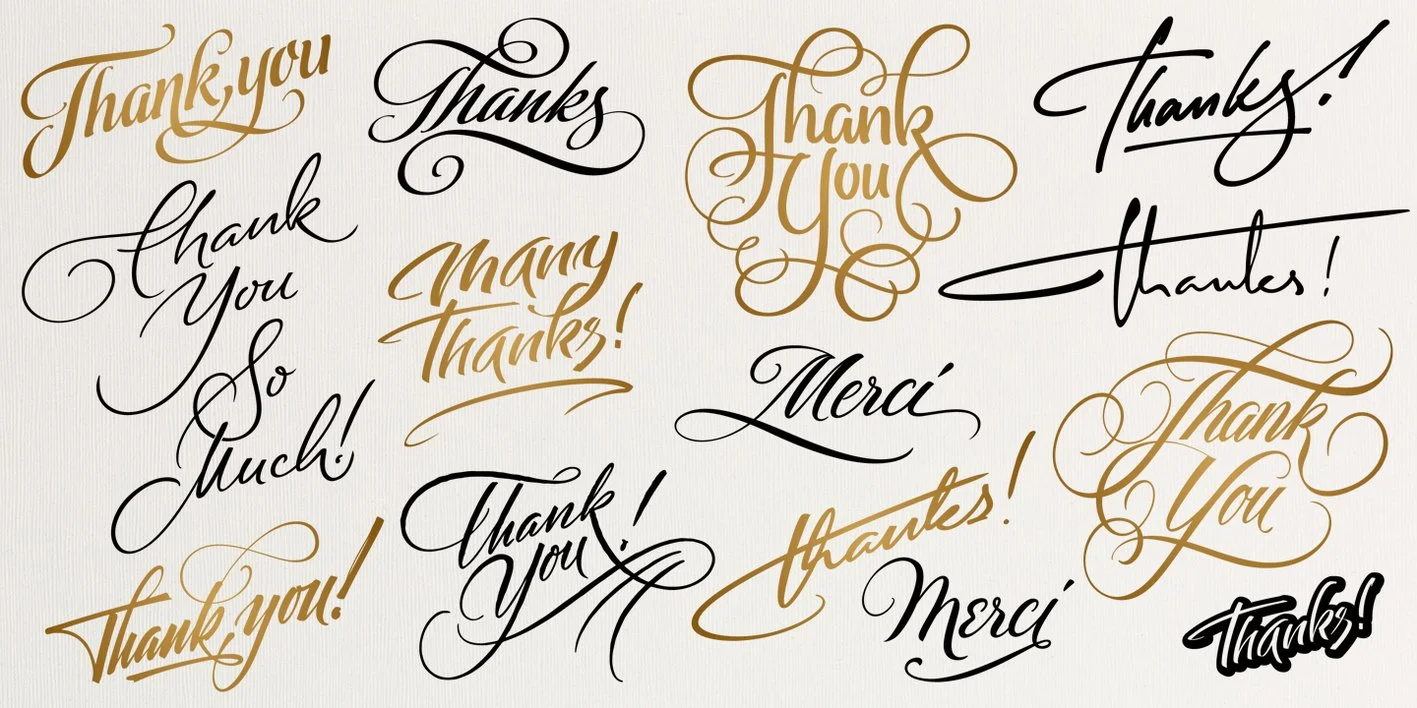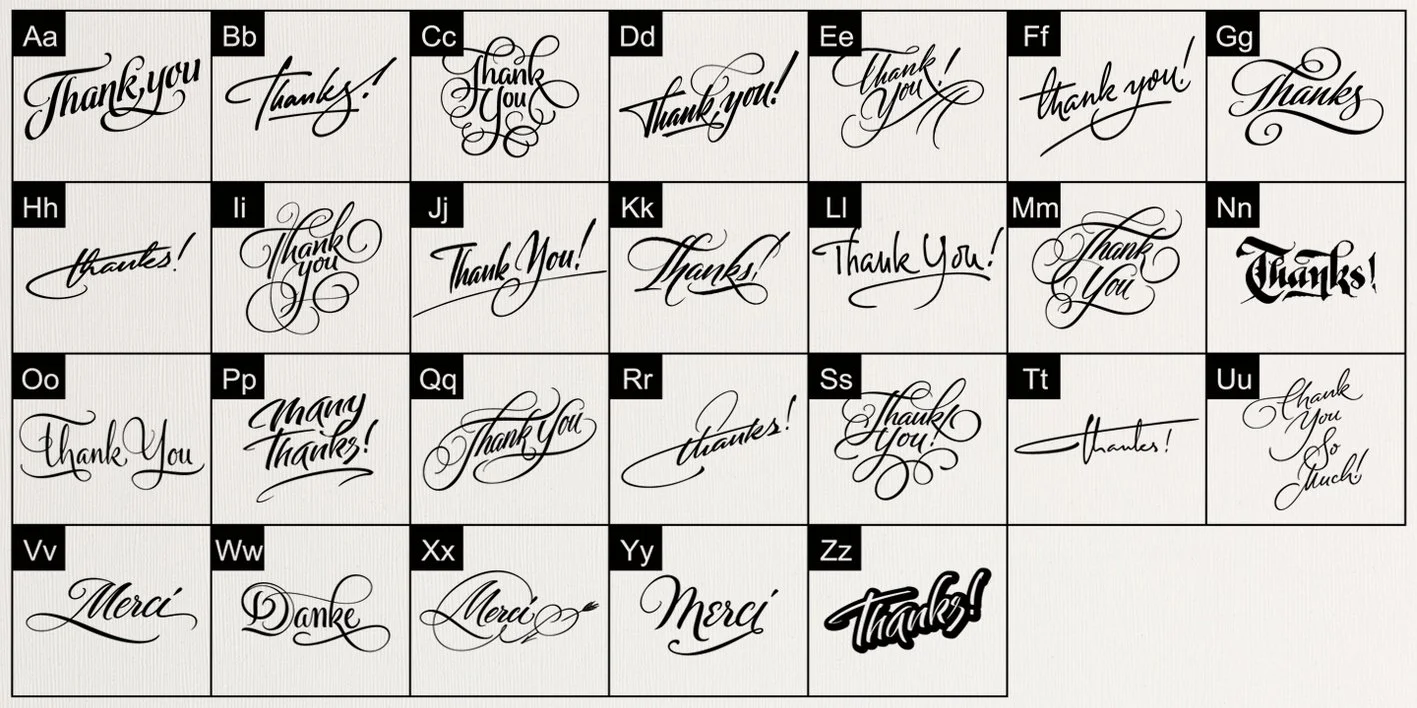
FM Thank You Font
Typography shapes perception at a subconscious level. FM Thank You leverages consistent type colour across continuous text to make every composition feel considered. The typeface brings a versatile sensibility to a broad range of creative disciplines, with versatility across print and screen contexts that holds up whether the work is print-first or screen-first.
In practice, FM Thank You proves particularly effective for signage systems, product labels, brand identity systems, logo design, advertising campaigns. Designers reaching for it find that the type decisions feel resolved rather than laboured — a useful quality when client timelines are tight.
The range of applications extends to environmental graphics, poster creation, editorial layouts, packaging design. That breadth is deliberate: the proportions and spacing were stress-tested across a wide range of mock briefs before the typeface was finalised.
The consistent rhythm of FM Thank You across a full paragraph creates the kind of even grey value that makes extended reading comfortable, a detail that matters more in long-form content than its subtlety might suggest.
Graphic designers working on identity systems find FM Thank You a reliable choice for projects that demand both personality and restraint. The design avoids the self-conscious quirkiness that dates quickly, settling instead for considered distinctiveness that holds up over time.